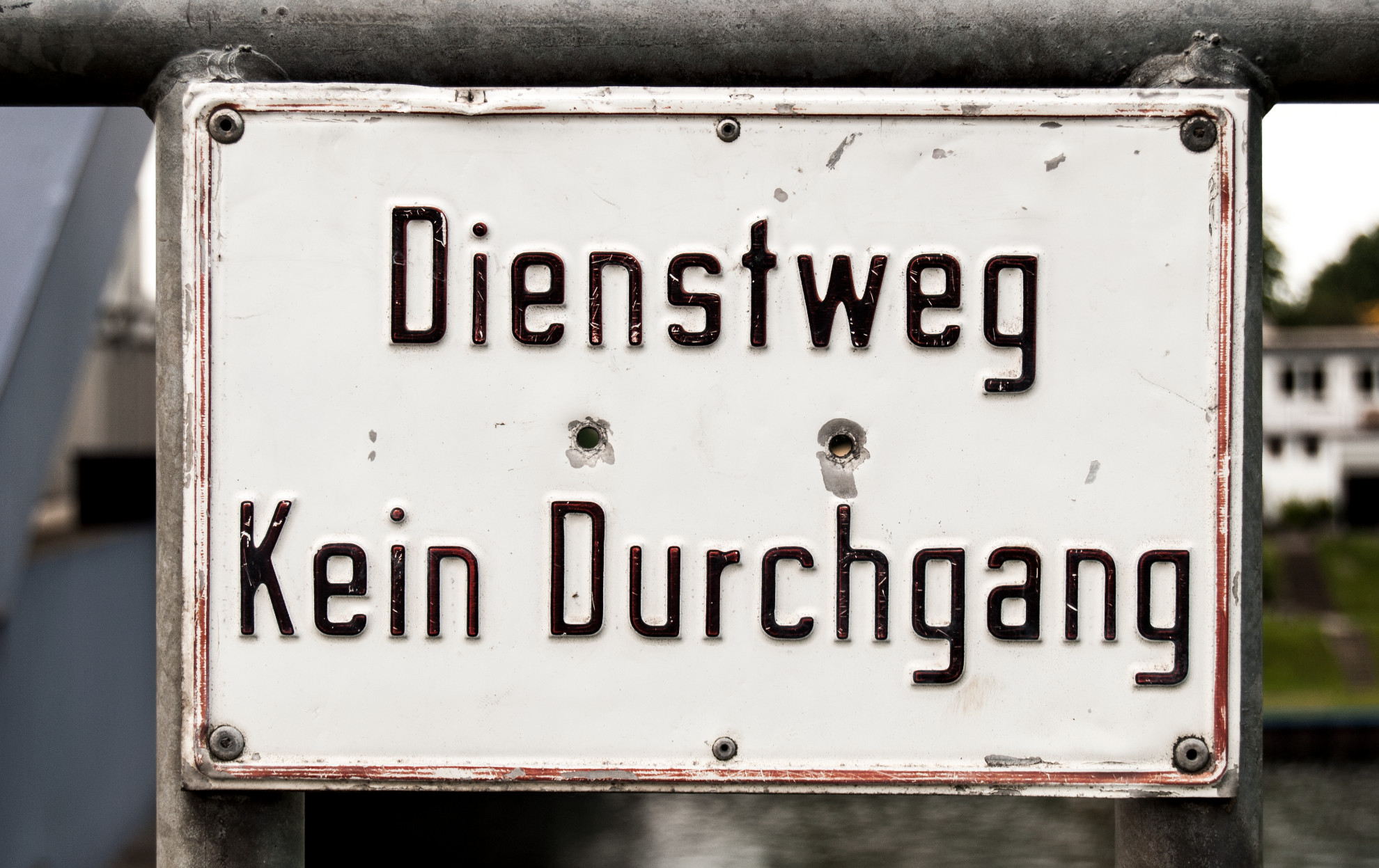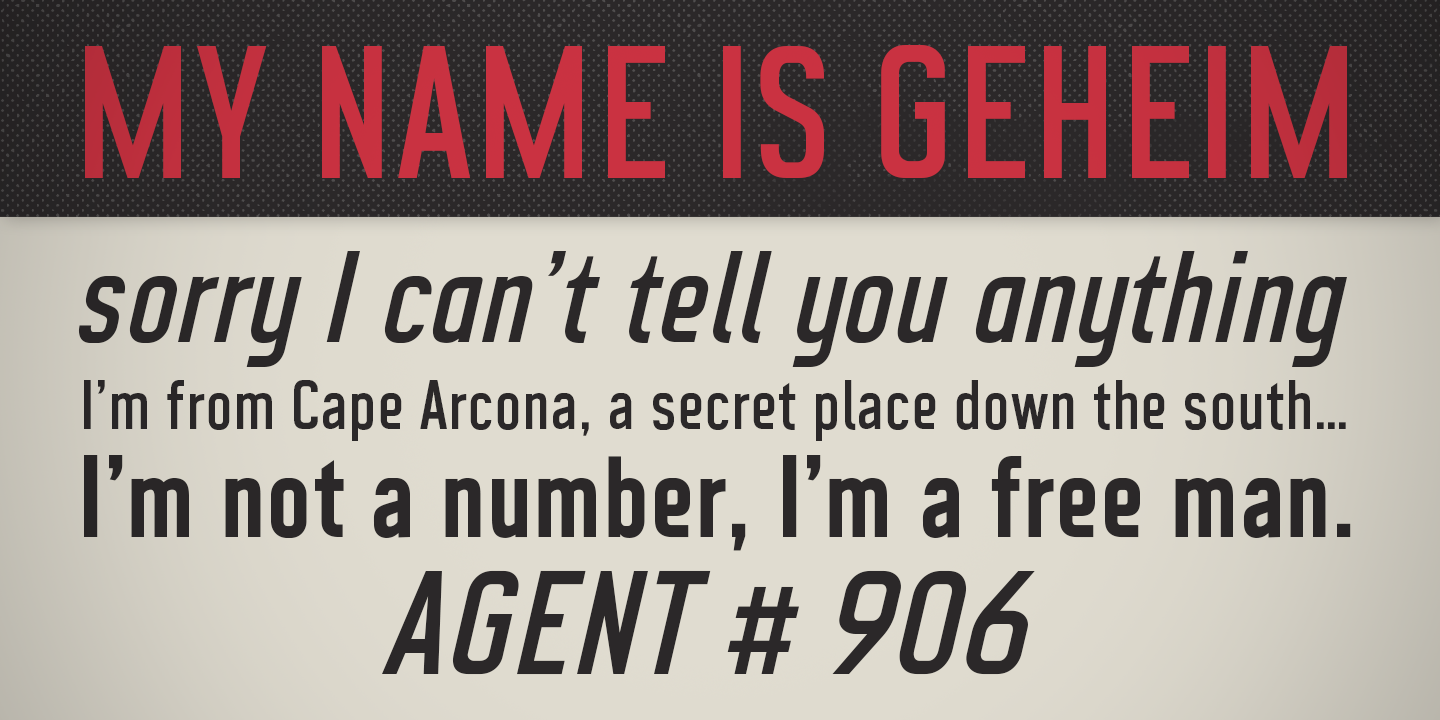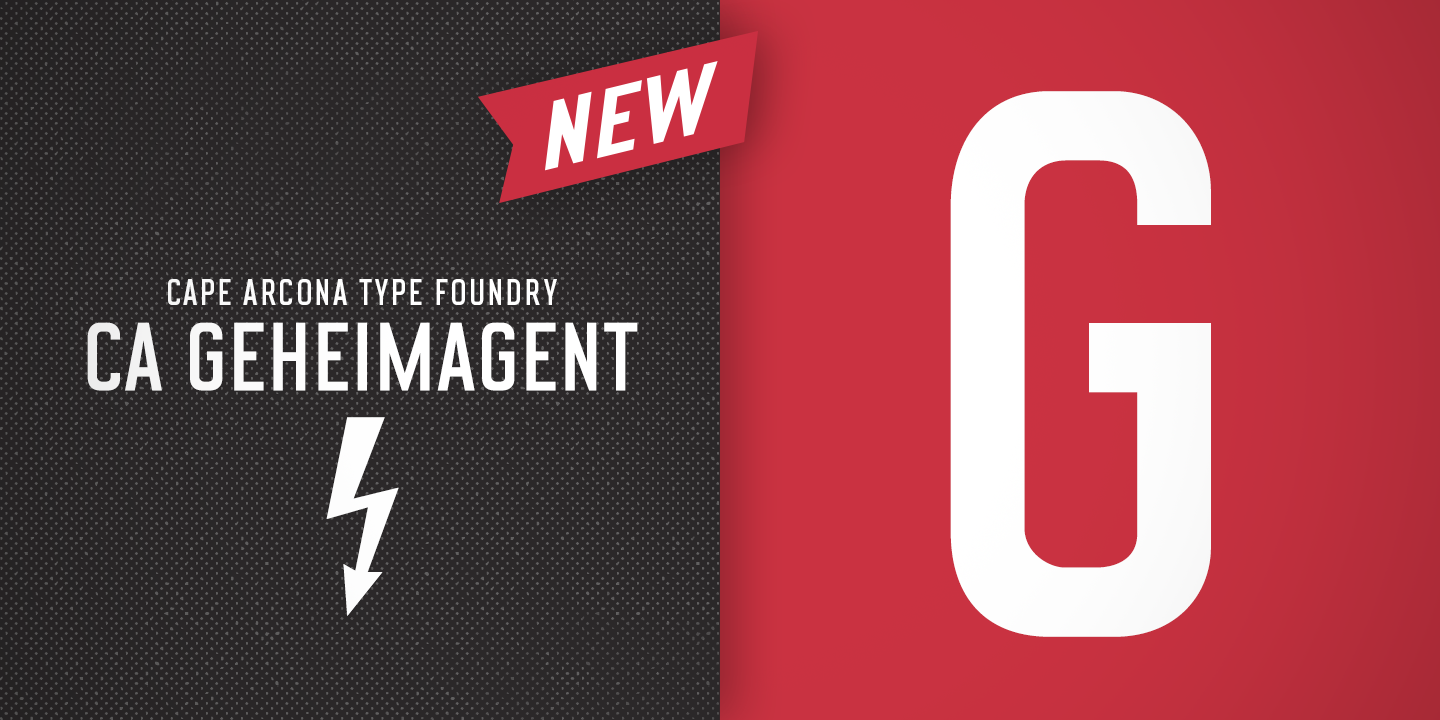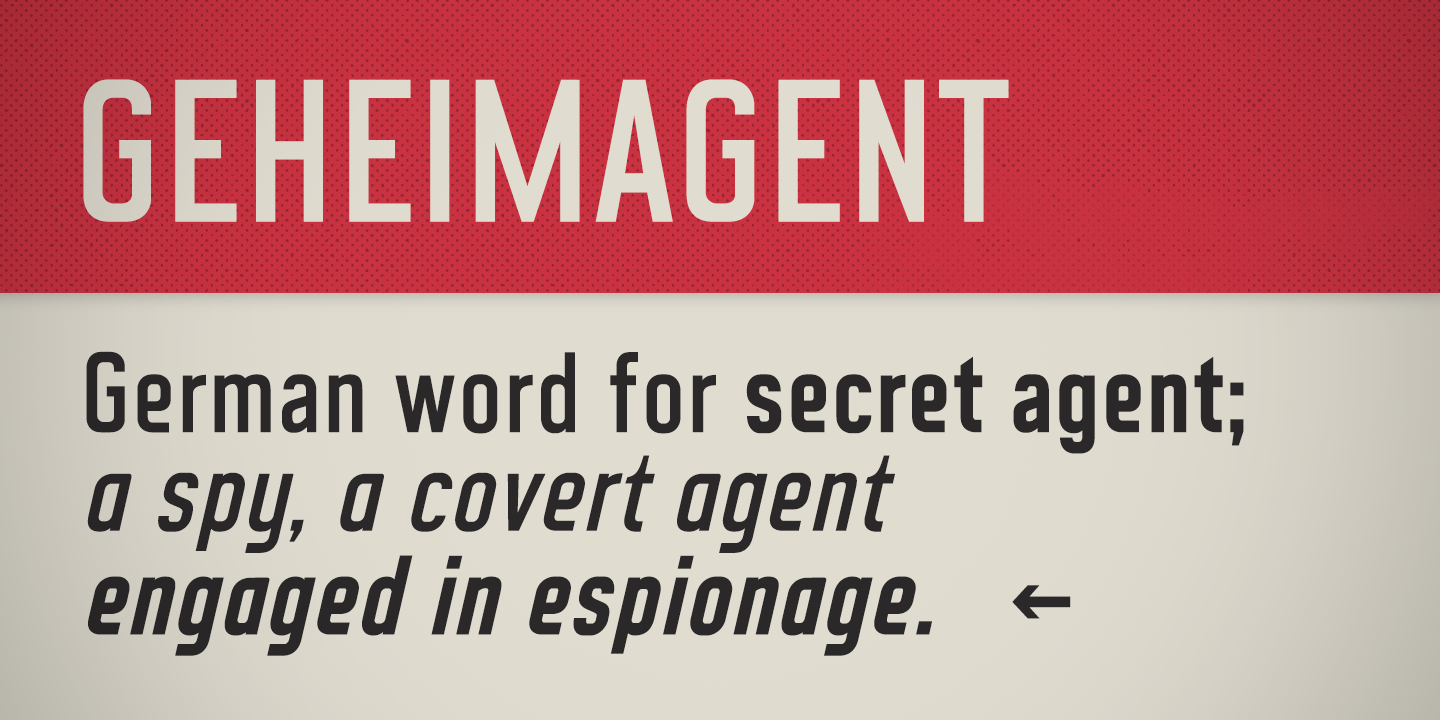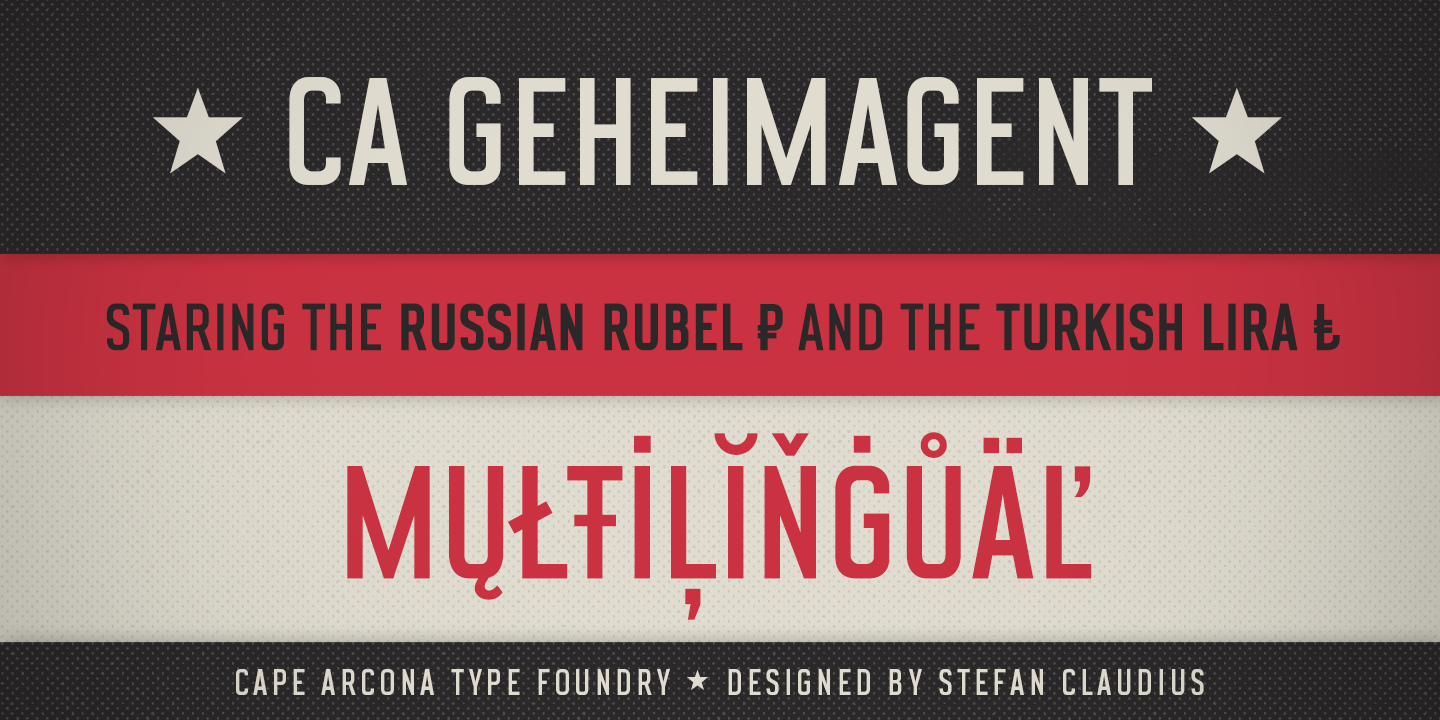
CA Geheimagent is perfect for setting text about restrictions or permissions if you prefer. Not quite a text font, not quite a headline font; it’s a bit of both. The italic style breaks up the strictness of the regular fonts. They are fast and forward and make a perfect mix with the severe upright uppercases. Have a more in-depth look to see the nice little differences between regular and italic; it’s not just the angle! Try to render the font and trash it up a bit. Cut it, paste it—it will survive. Because it has already seen everything since its origin as a prohibition sign in an industrial harbor.